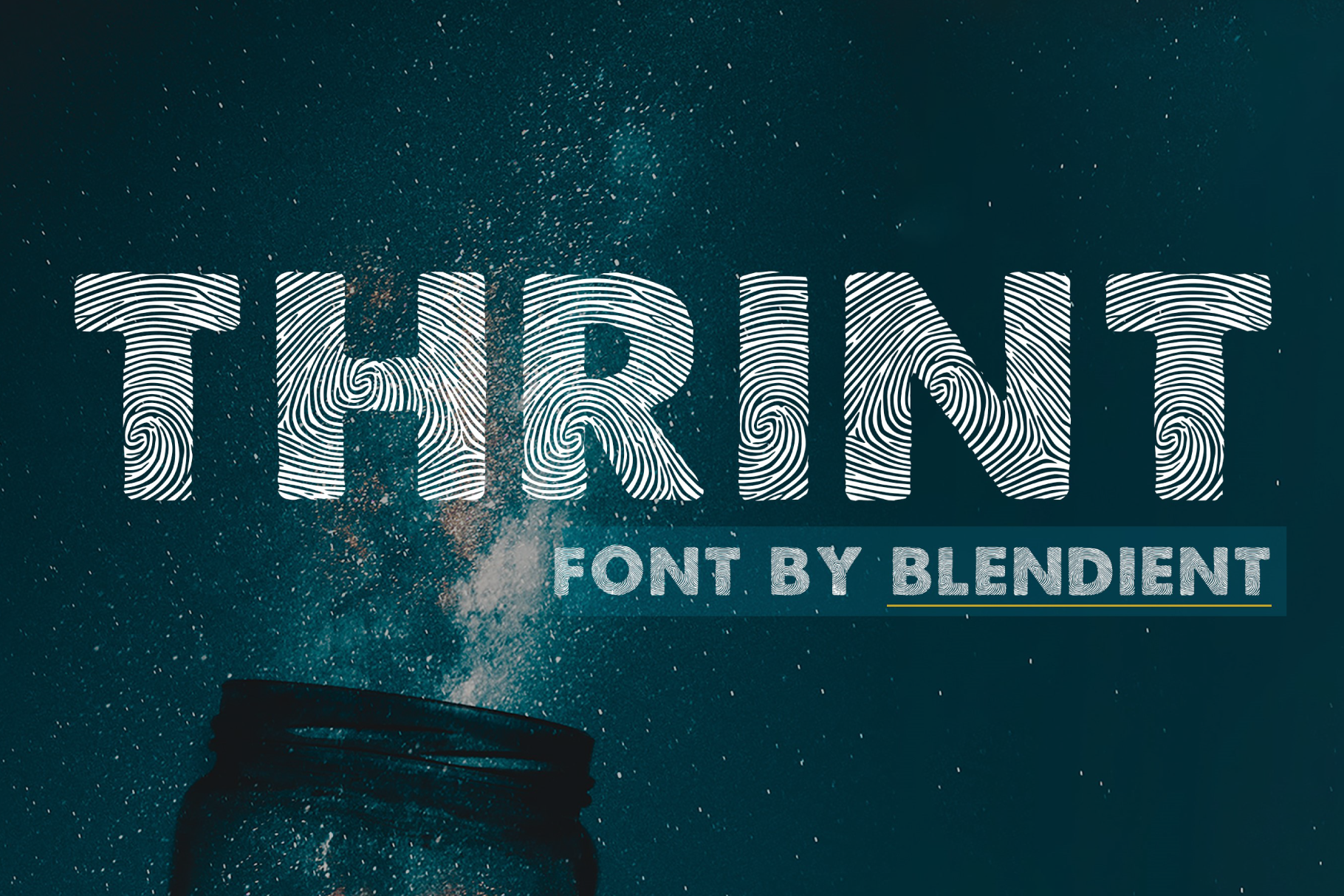
Thrint Font - A Thumbprint Font
A simple font made from Thumbprints. It includes all the characters including numbers. A Fingerprint font. A Thumbprint font.